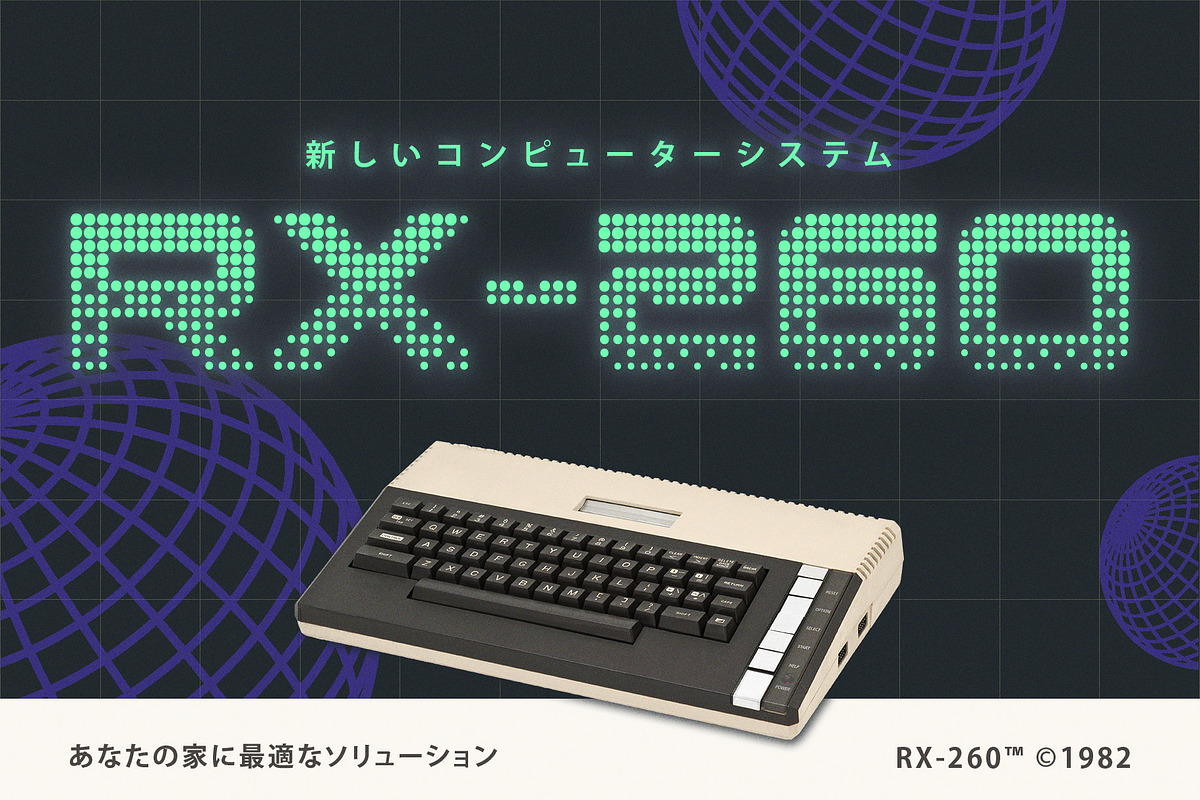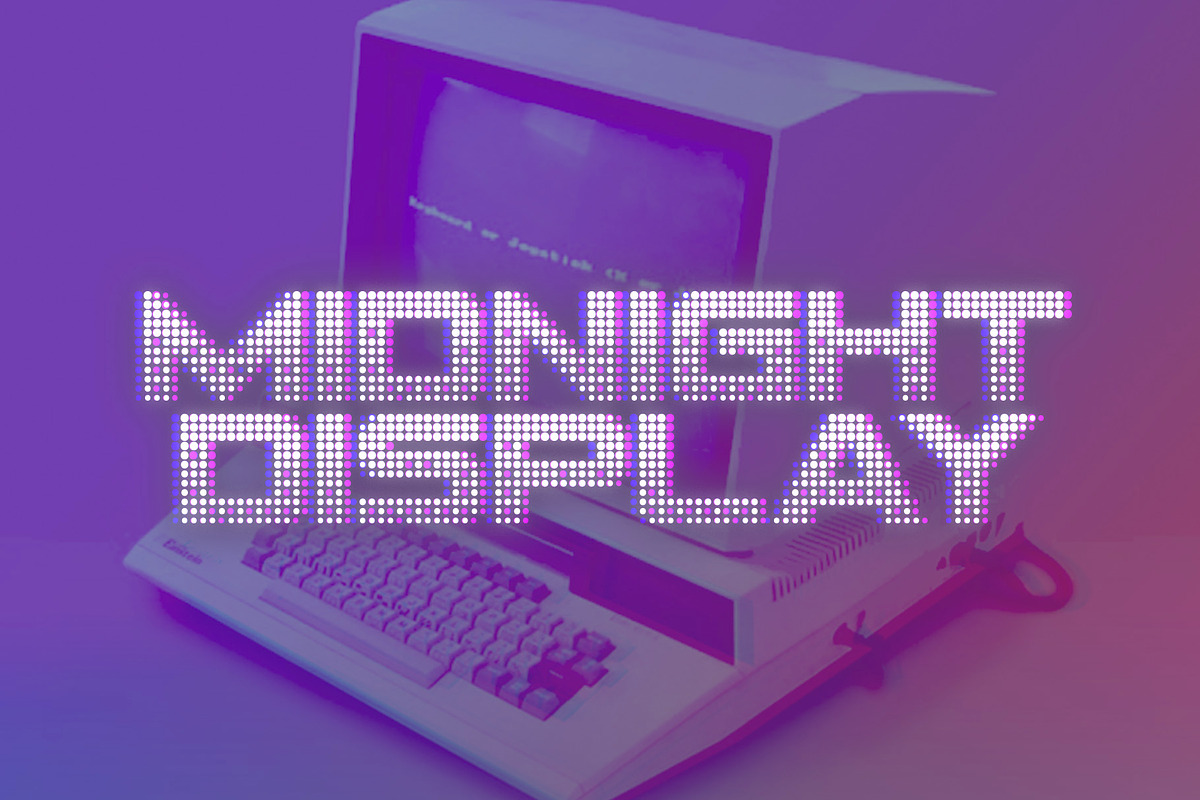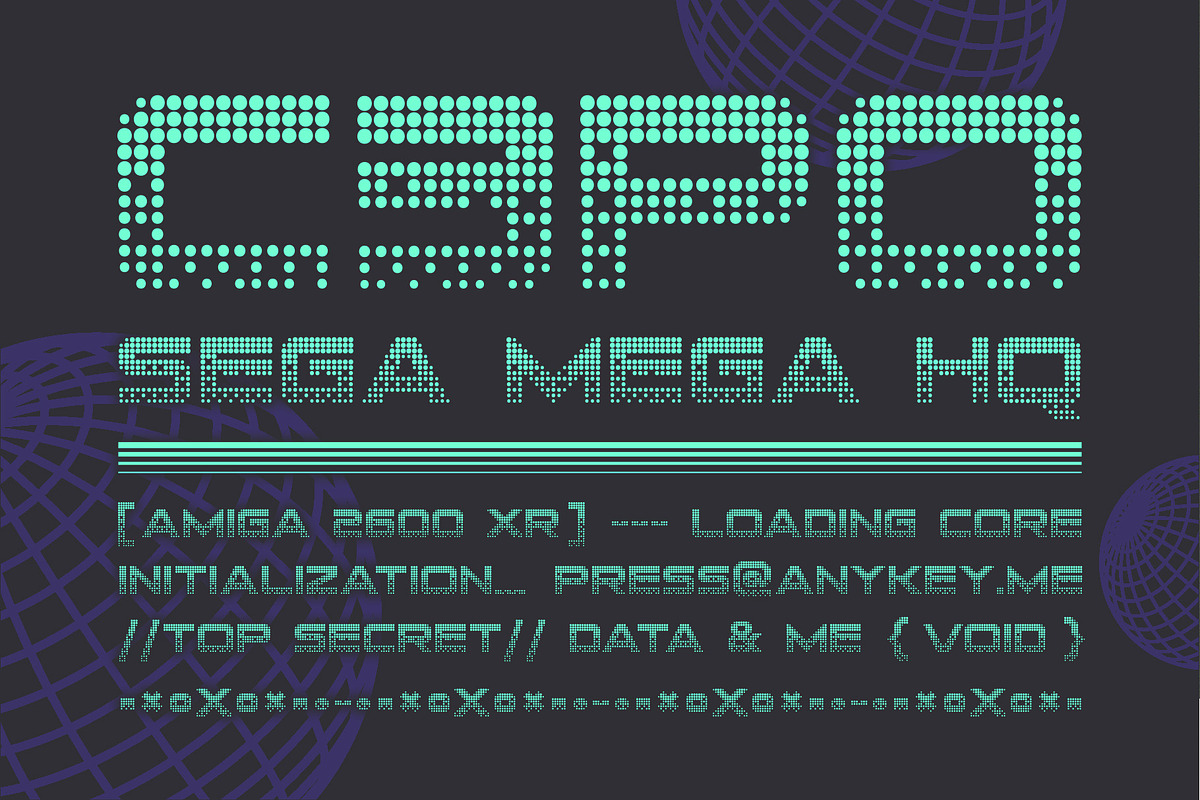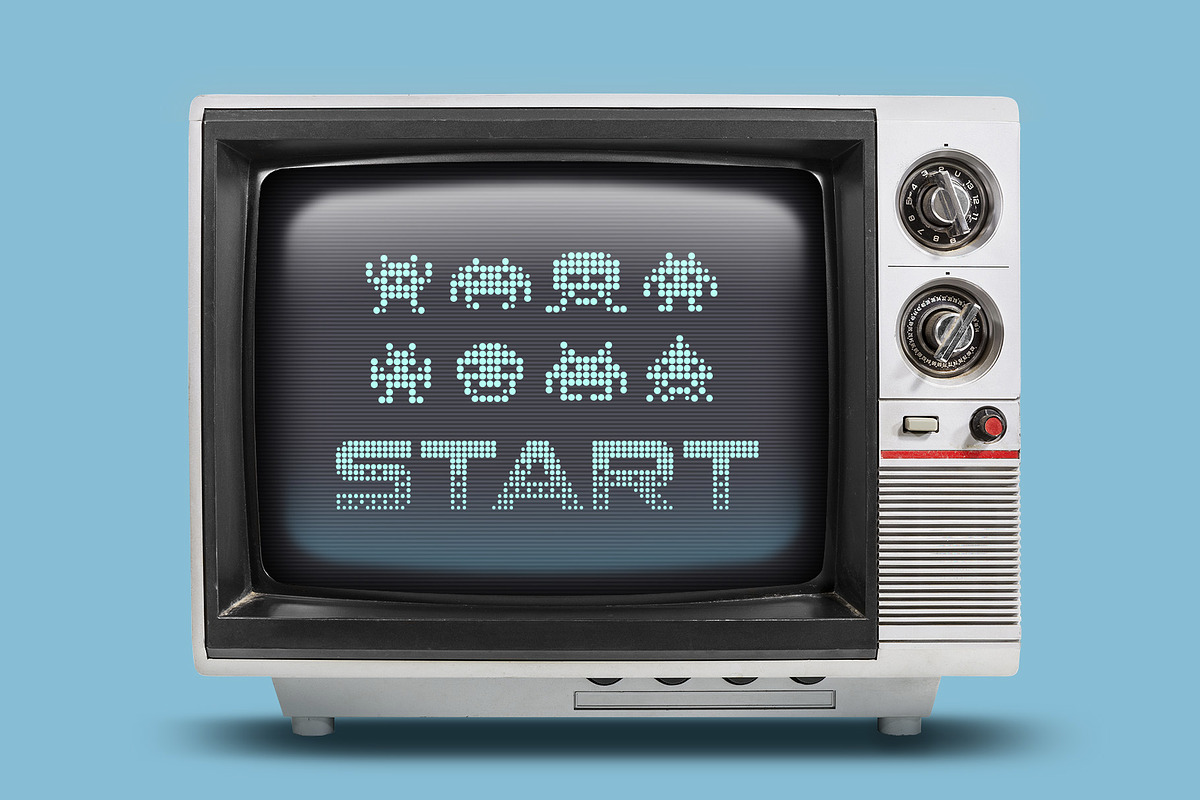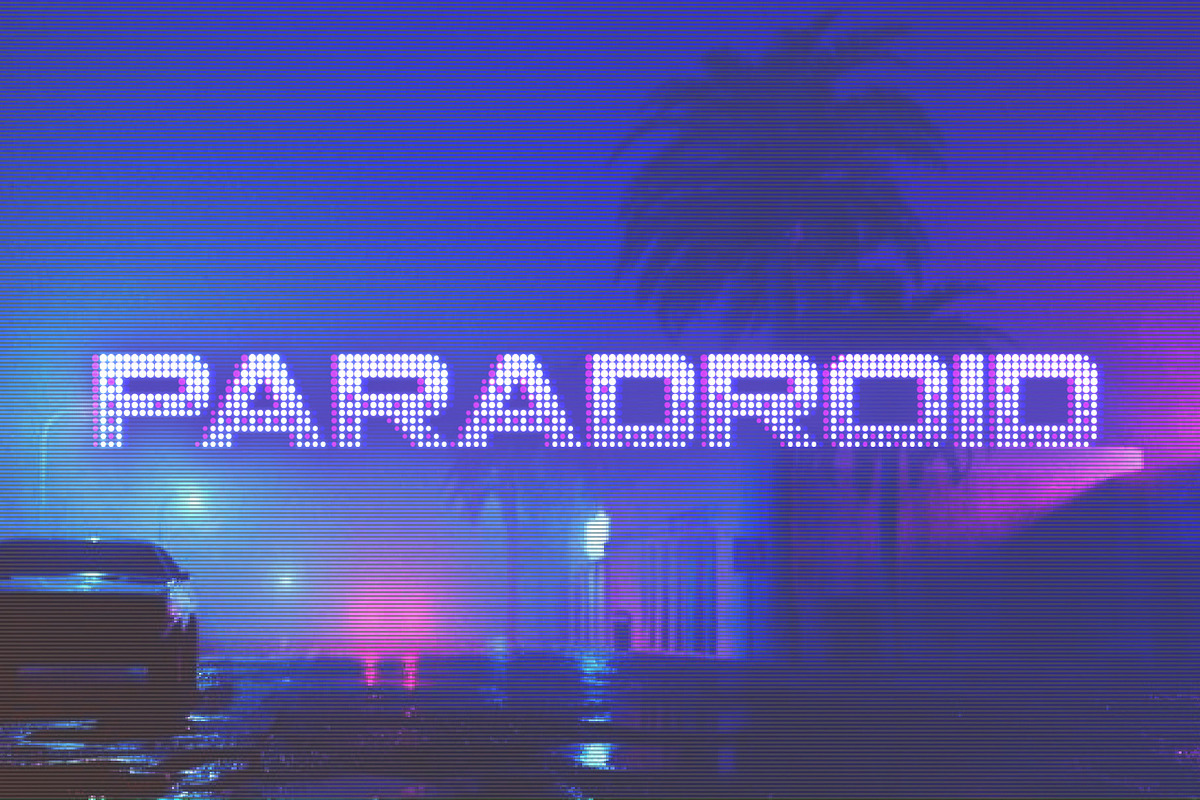
CRT-64 Dotted Font
Introducing CRT-64, a retro-looking dotted font inspired by aesthetics of the 80's computer systems and Cathode Ray Tube Displays in particular. Perfect for headers (especially for the big ones), can be used for small text blocks also. This font could be the perfect solution if you want to give a touch of retro technology to your designs. This font was created especially for the MEGA SYSTEM vector graphic pack. But you can use it separately for your amazing designs.